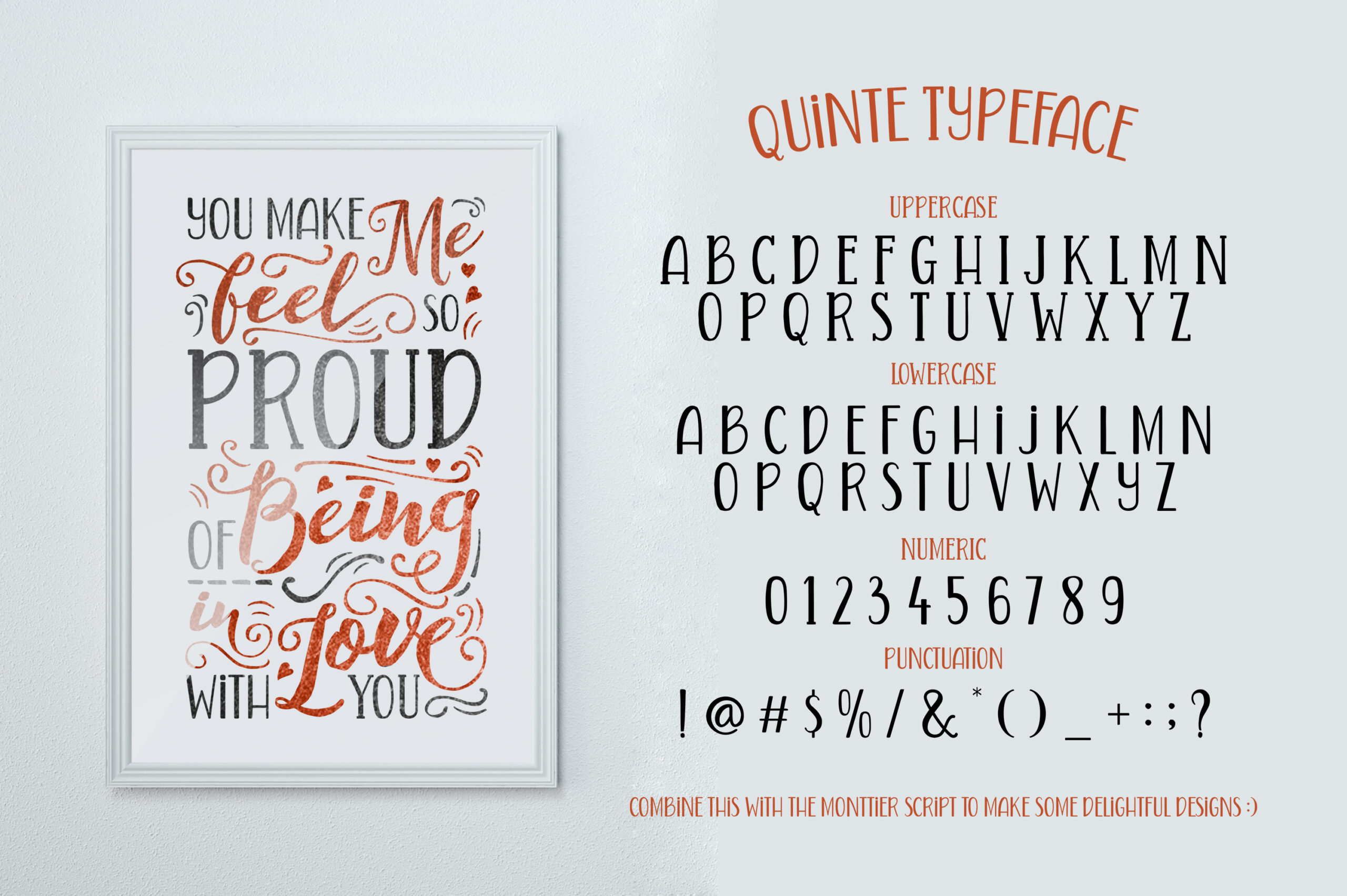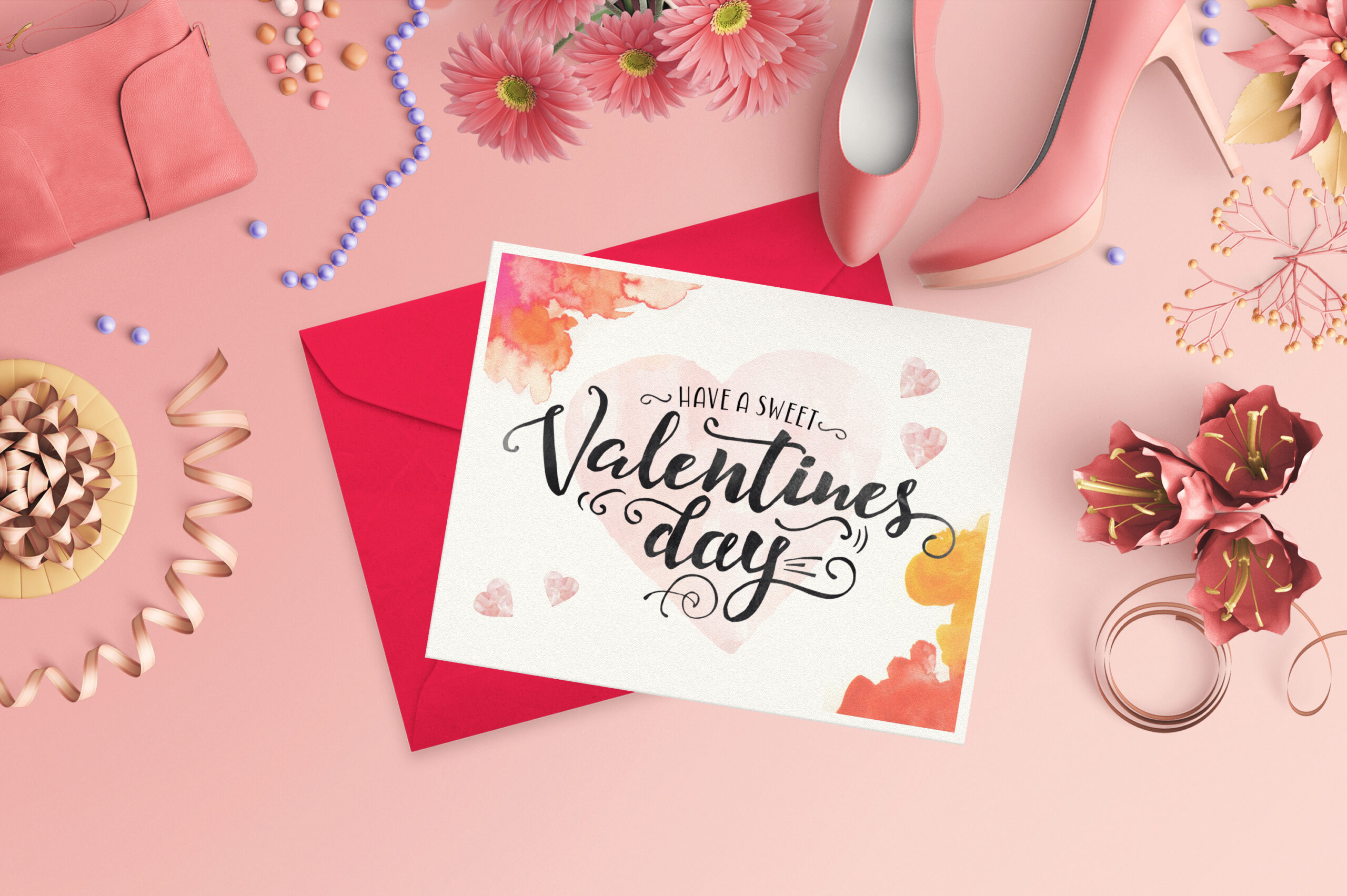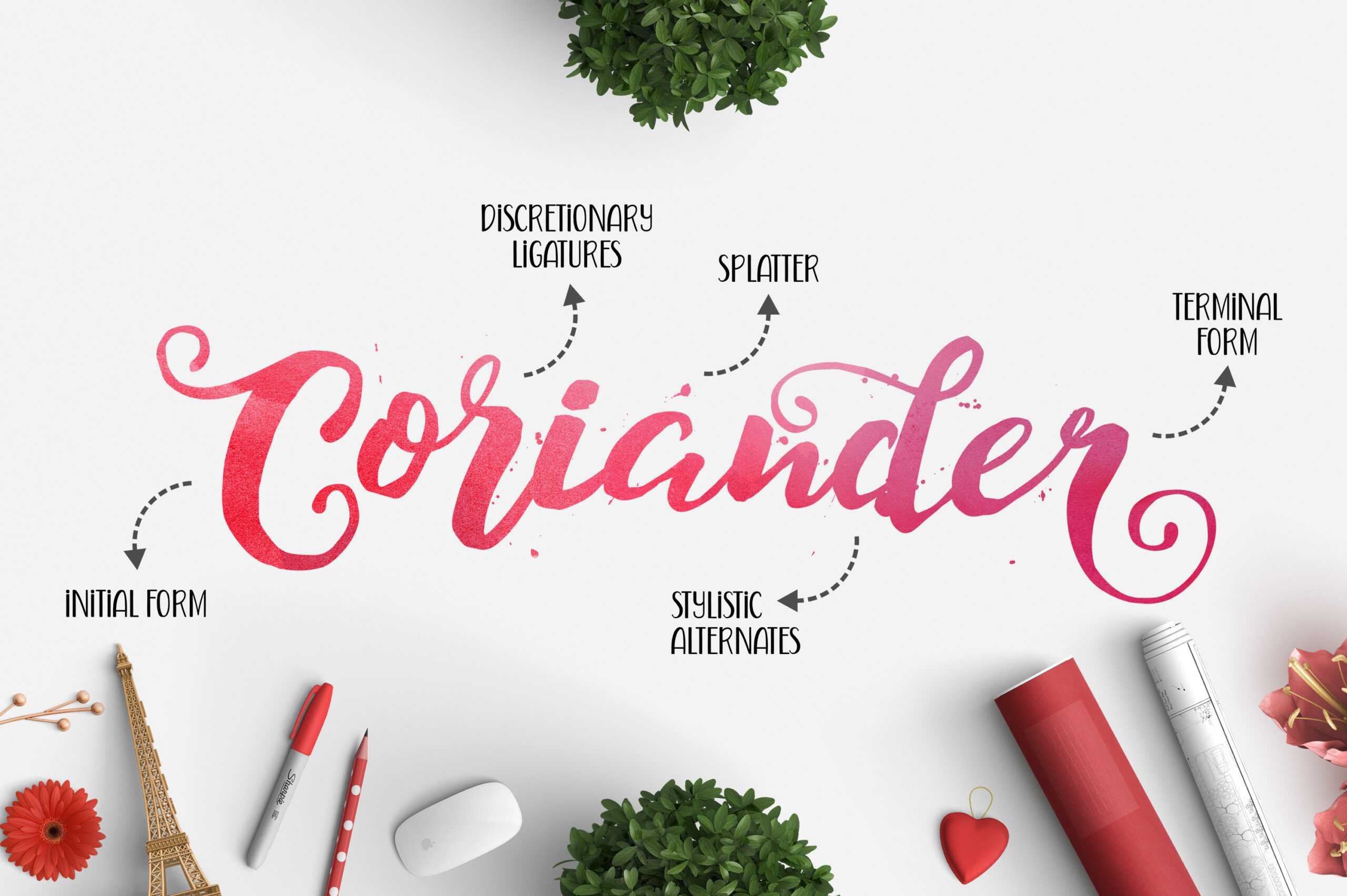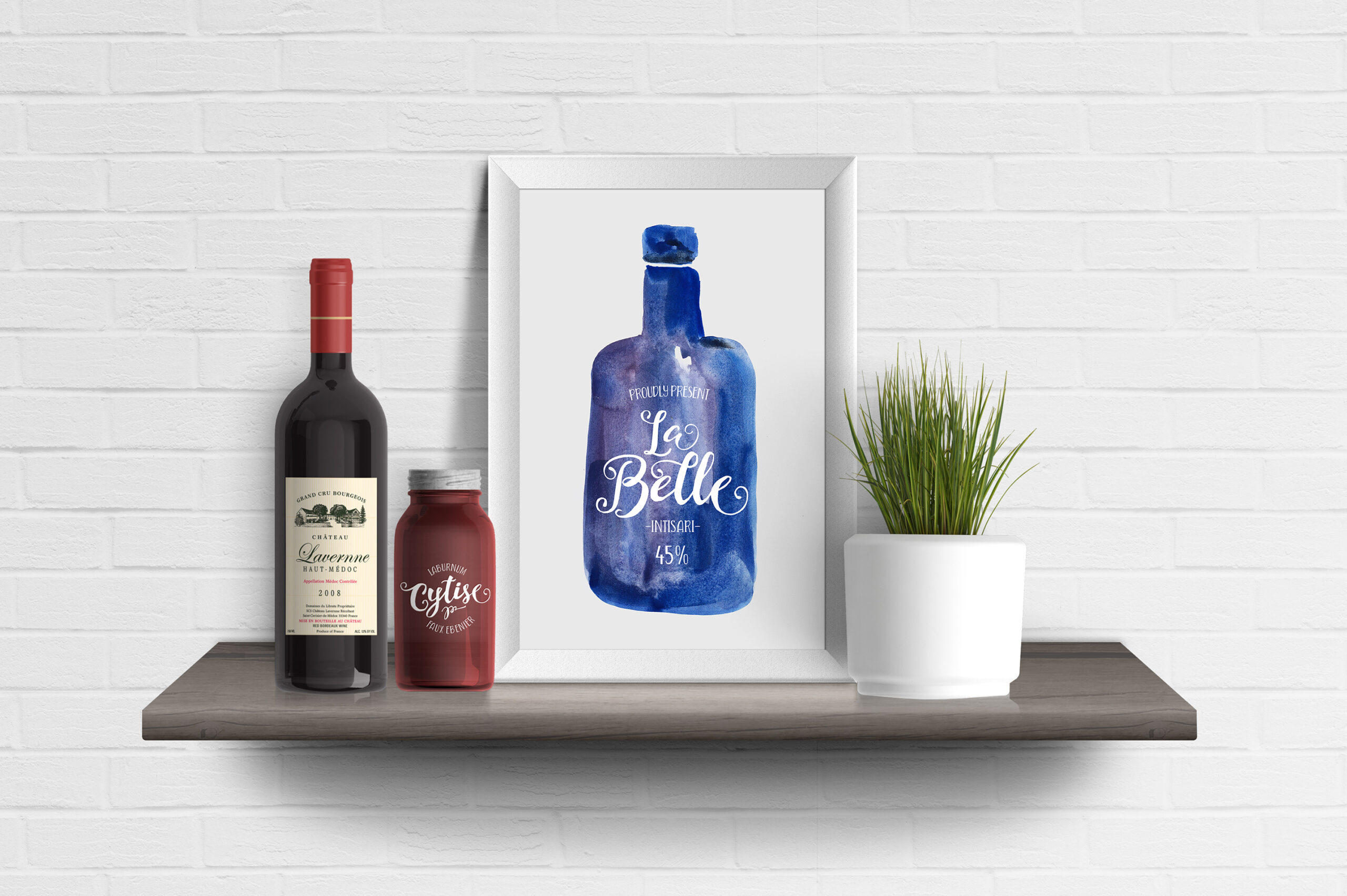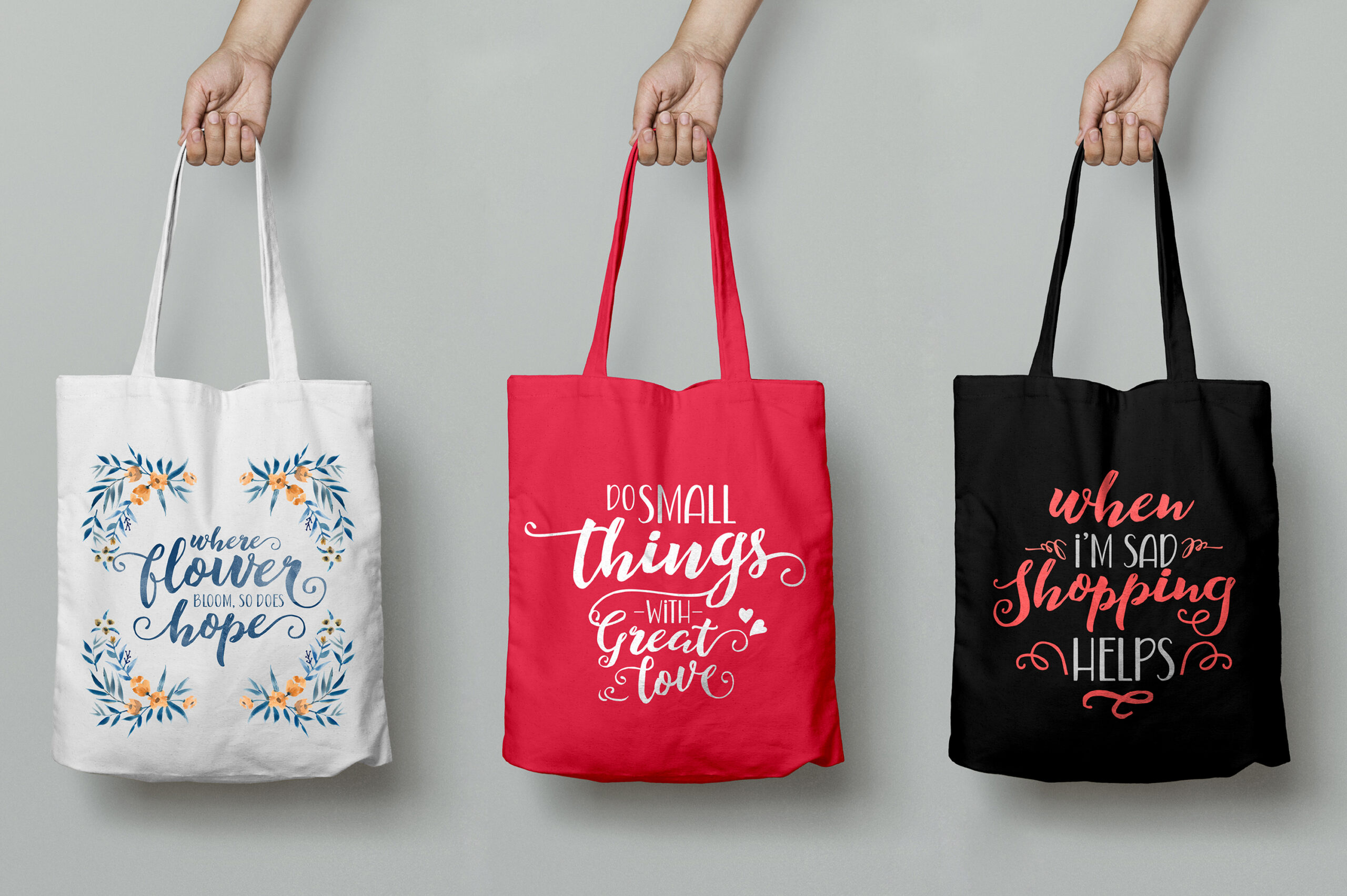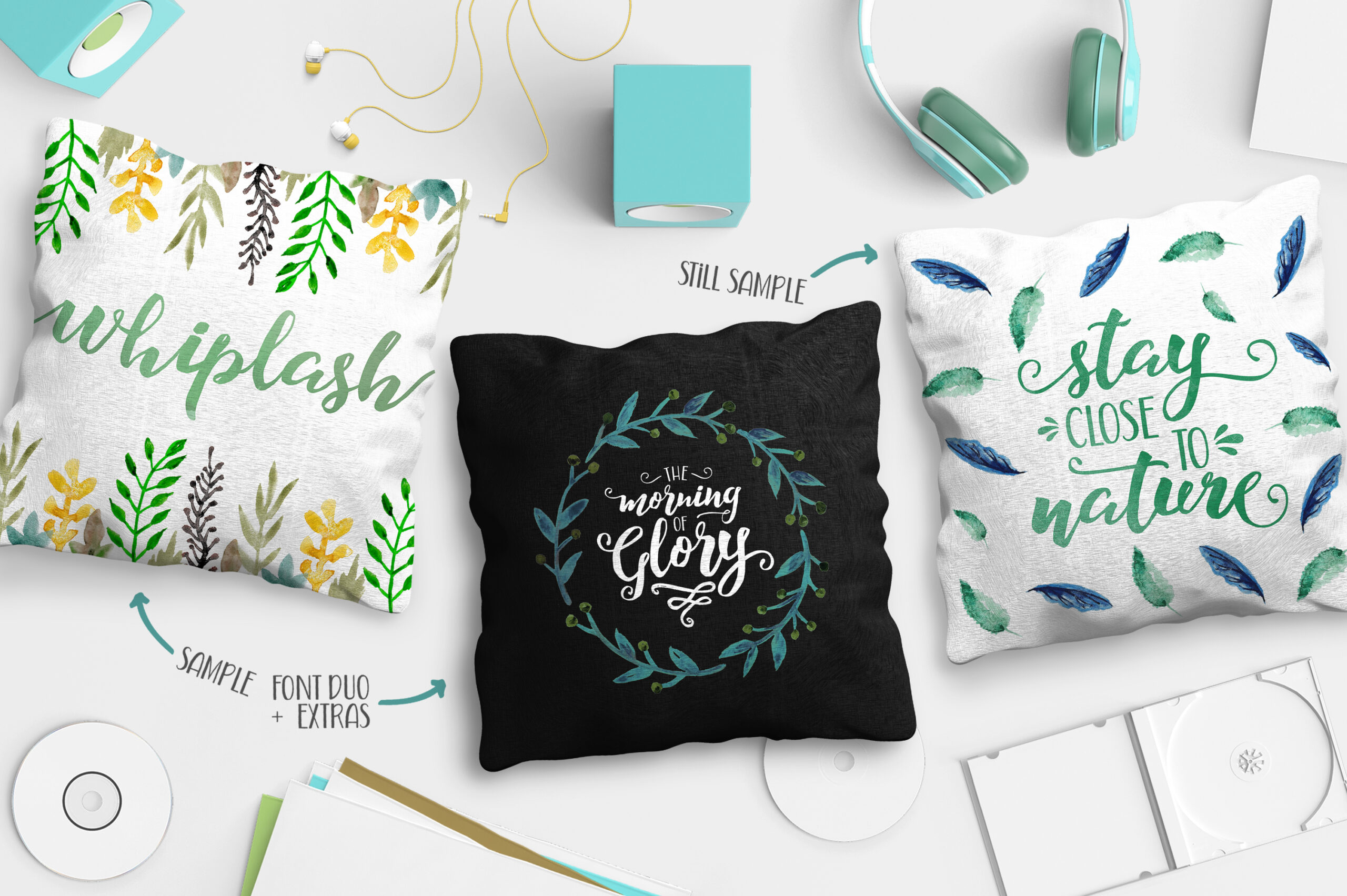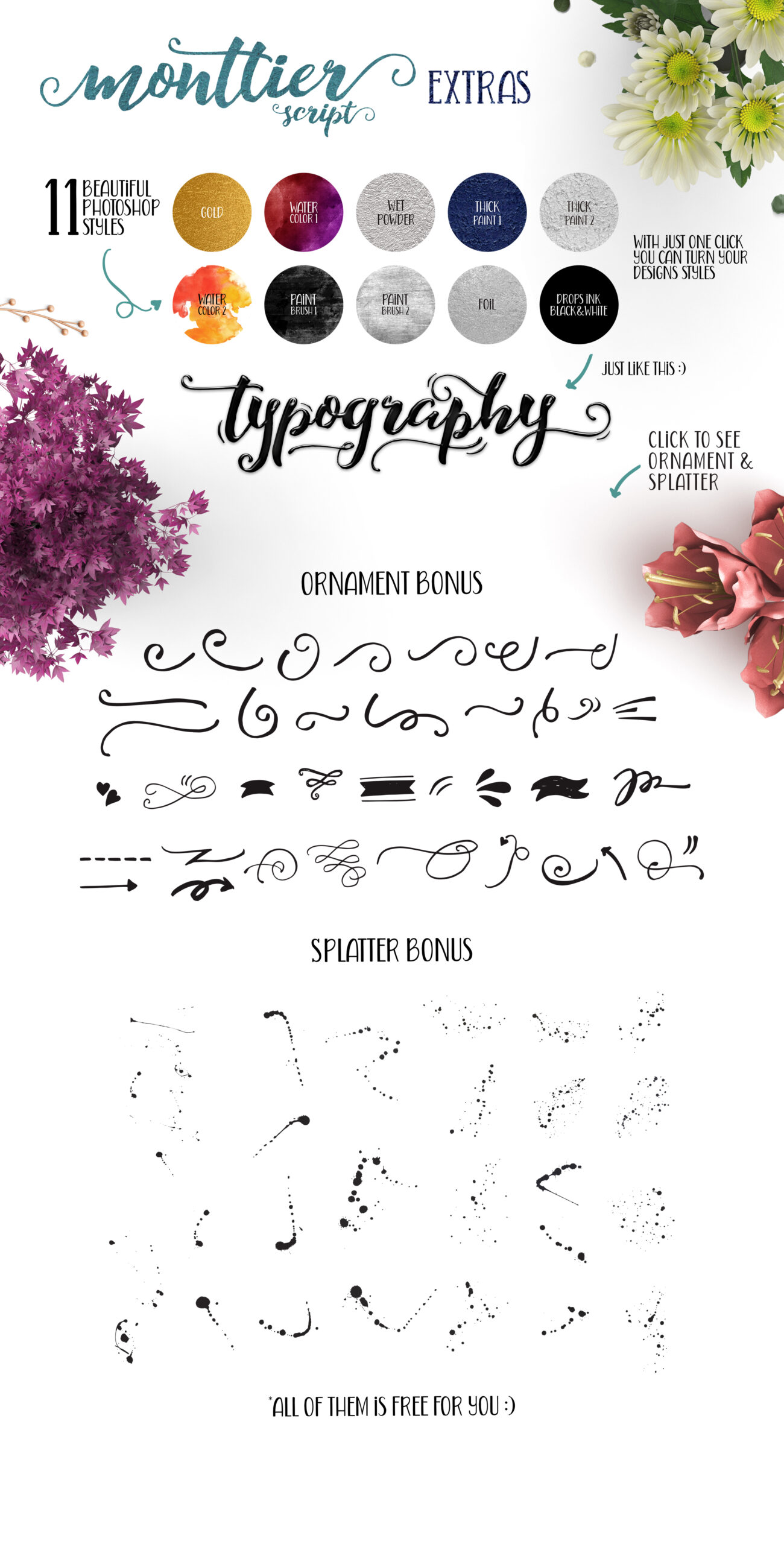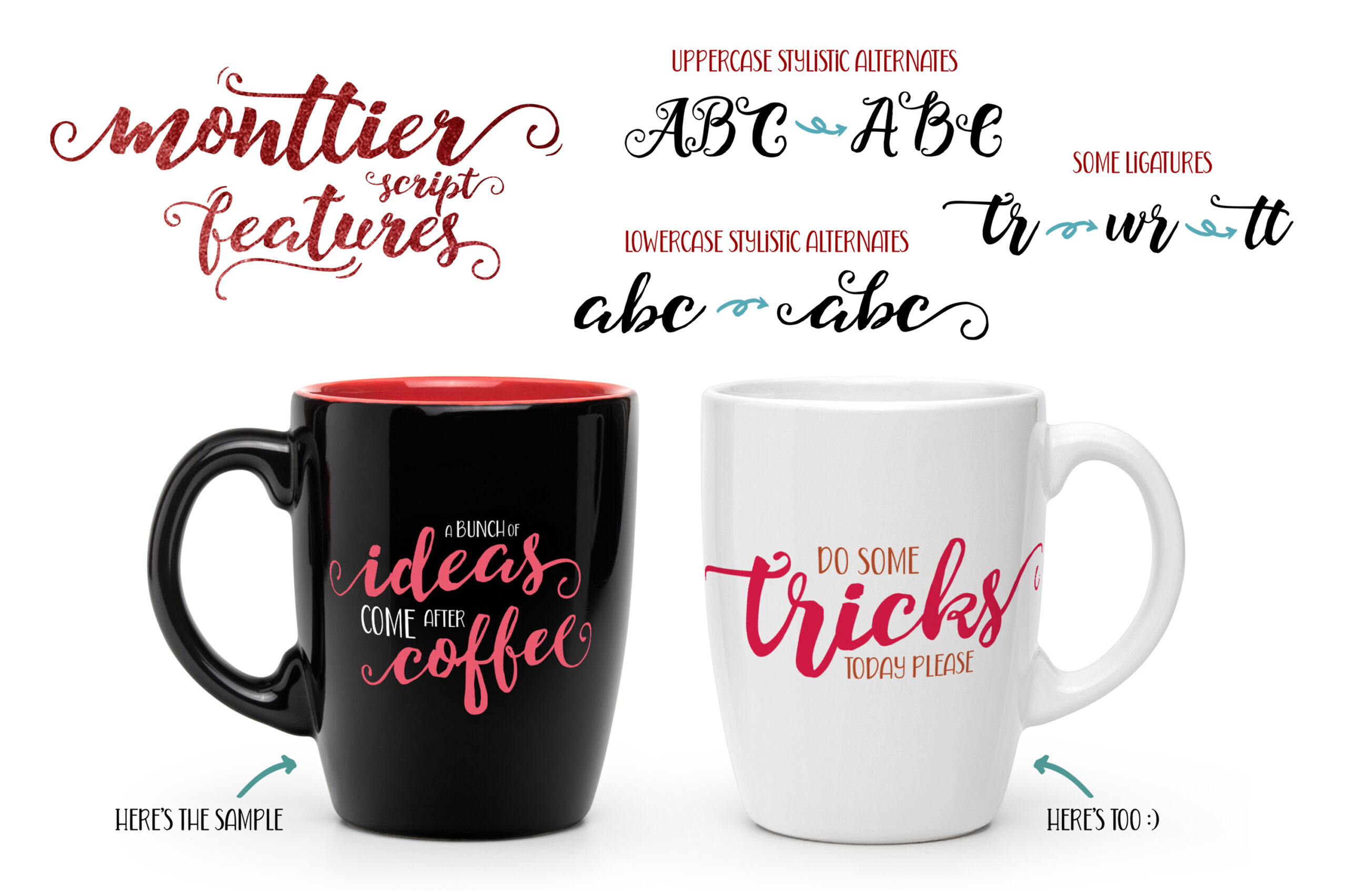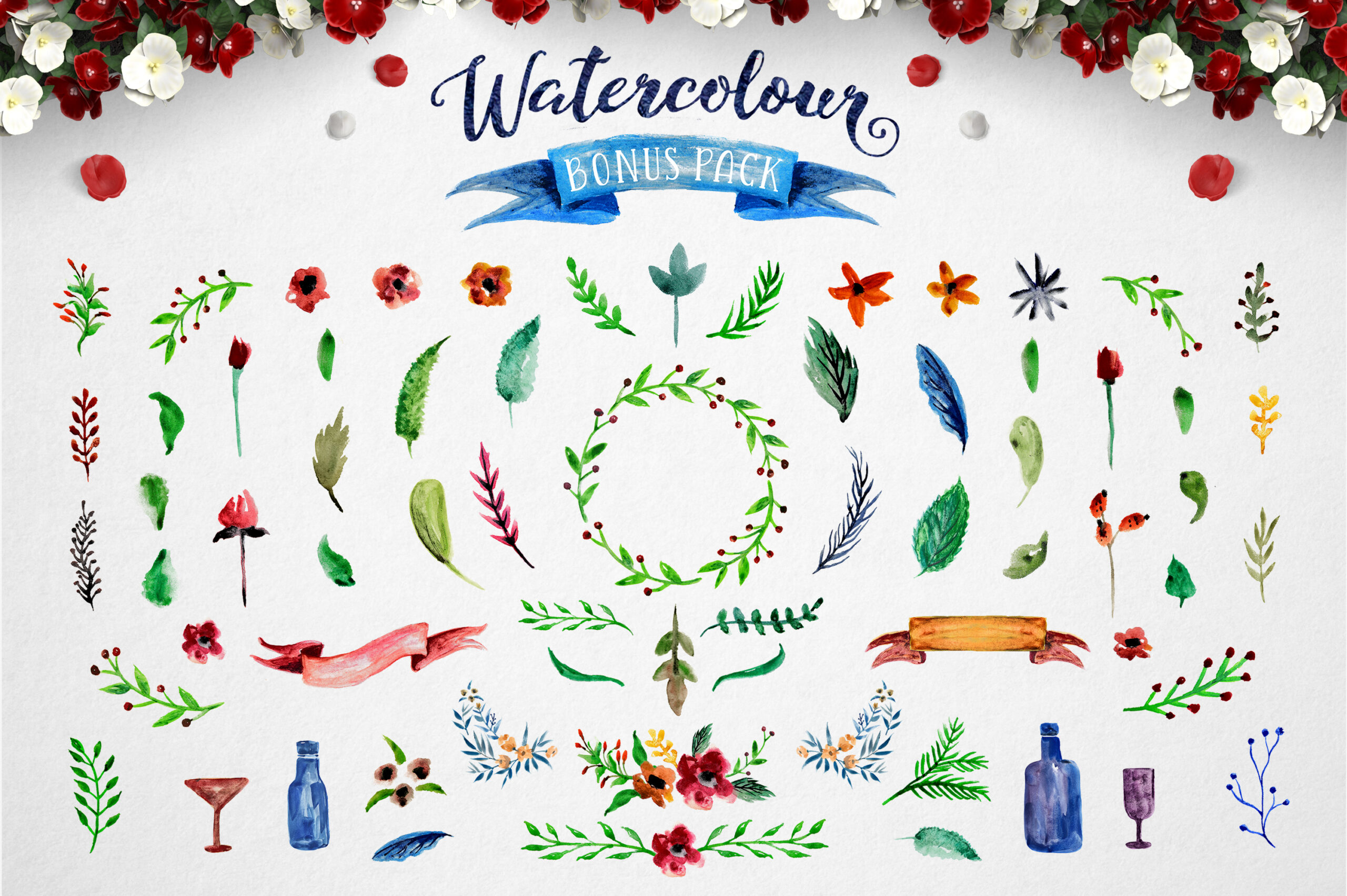
Monttier Font
About Monttier Font
The Monttier Script Font Duo is a stunning set together with the Quinte Typeface, a clean and simple sans serif font. These were created to be dual purpose, with hand painted characters and charming irregularities. This download comes with extras!